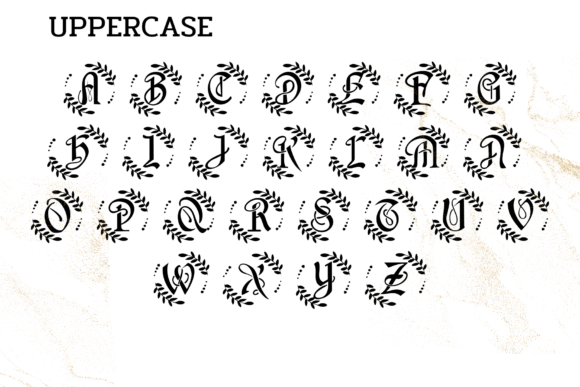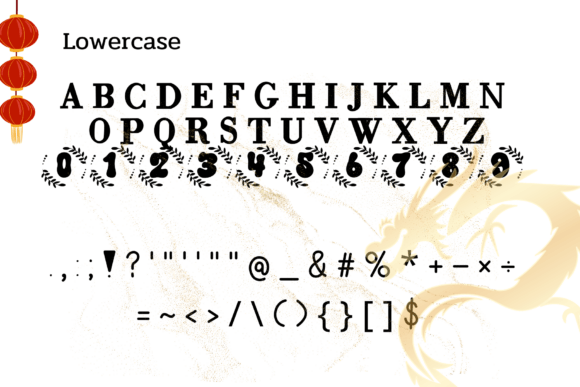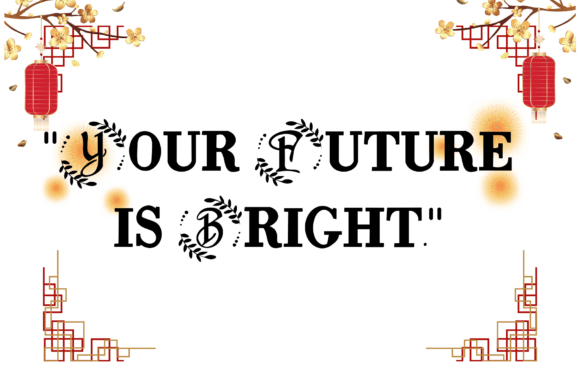
Introduction to Lanterns Font
Lanterns is a decorative monogram font with elegant letters framed by leaves on a vine.
Perfect for adding a natural, stylish touch to your designs .